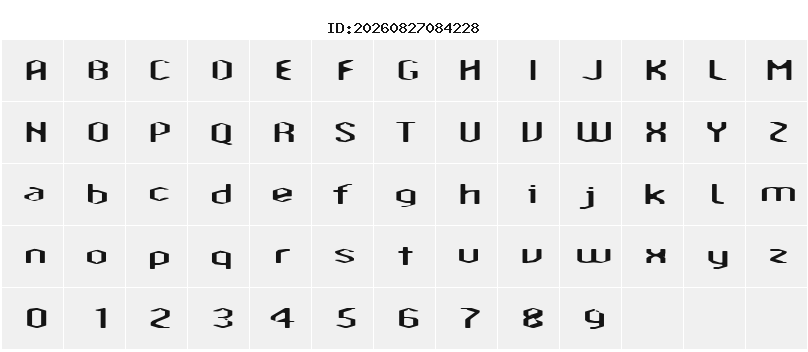
3代呼吸英文-黑有感 Preview
• Font Name: 3代呼吸英文-黑有感
• Font ID: Amosis Technik
• Full Font Name: 3代呼吸英文-黑有感
• Version: 2.0 of this technickal type o font thingie
• PostScript Name: AmosisTechnik
About 3代呼吸英文-黑有感.ttf
3代呼吸英文-黑有感.ttf is a modern, elegant sans-serif font designed for ultimate readability and visual harmony. Perfect for branding, headlines, web design, and print materials.